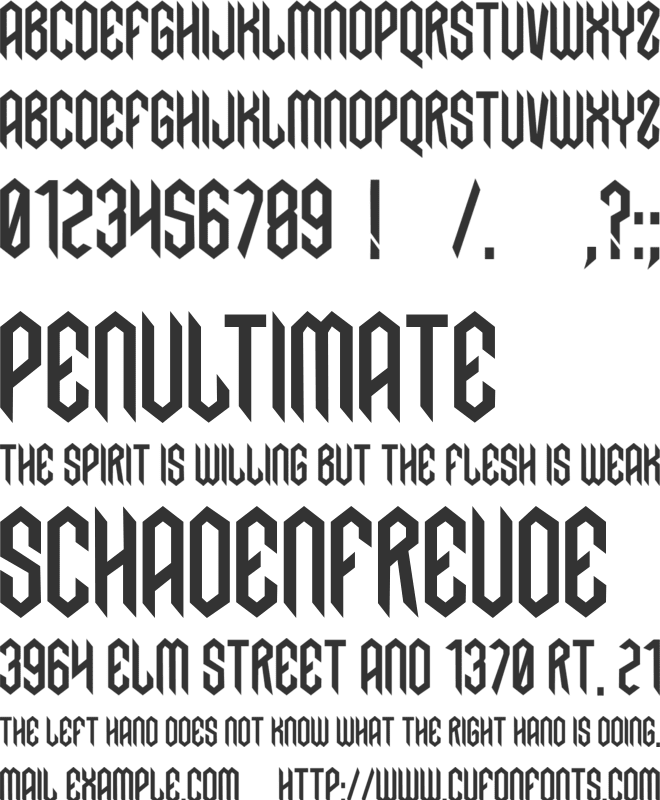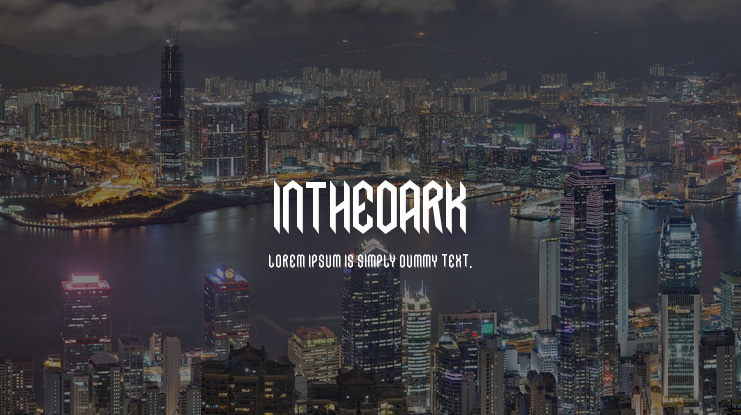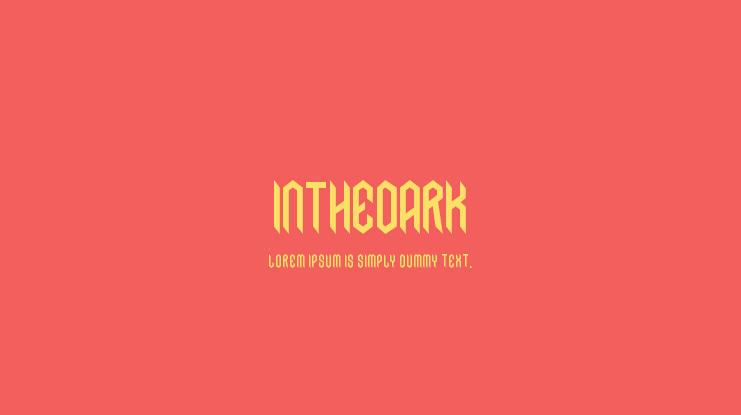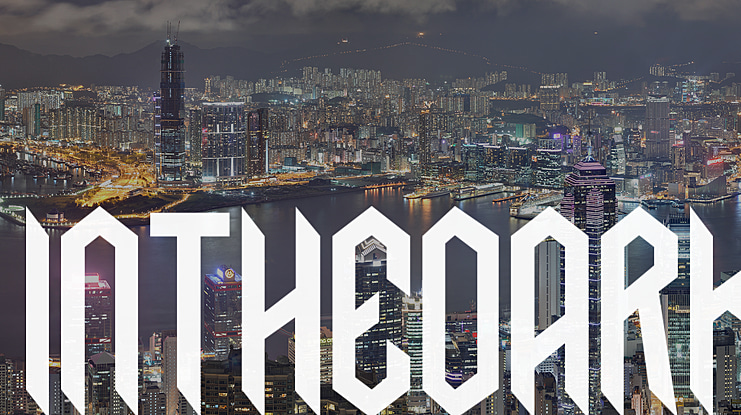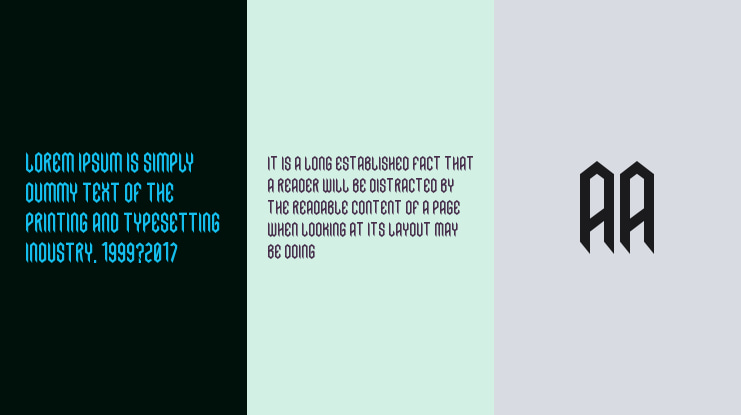
Inthedark Font
Hi, i'm Arthy today i want to share Inthedark, a decorative display font suitable for any kind creative project. Music project, movie project, you name it. Inthedark has uppercase and numbers, with update possibilty. Do note hesitate to ask for any question. Any donation are very welcome. Thank you for your support, have a great day.